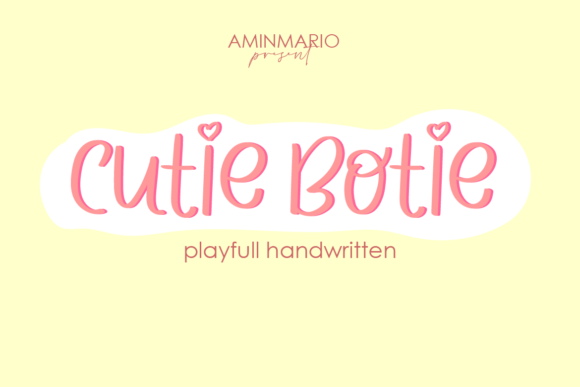
About Cutie Botie Font
Introducing “Cutie Botie,” the joyful and quirky handwritten font that is sure to bring a smile to your face! With its playful and lighthearted style, this font radiates happiness and positivity, making it perfect for a wide range of creative projects. Let “Cutie Botie” capture your heart and infuse your designs with joy and charm.
The whimsical and delightful appearance of “Cutie Botie” makes it the ideal choice for adding a touch of fun to your wedding invitations, thank you cards, quotes, greeting cards, logos, business cards, and any other design that needs a dose of cheerfulness. Its unique and distinctive strokes create a sense of playfulness that is sure to brighten up any project.
With “Cutie Botie,” your designs will exude a sense of joy and positivity, making them stand out in a sea of ordinary. This font’s versatility allows it to shine across various themes and styles, making it suitable for both formal and casual occasions.
Get creative and use “Cutie Botie” to craft eye-catching social media posts, delightful stationary art, and captivating designs that resonate with your audience. Whether you’re designing for a special event, a brand, or simply to spread happiness, this font will elevate your work to a whole new level.
Not only is “Cutie Botie” full of personality, but it also offers practicality with its easy-to-access glyphs and swashes, thanks to PUA encoding. Add charming flourishes and decorative elements effortlessly, giving your designs that extra touch of whimsy.
Embrace the joy and playfulness of “Cutie Botie” as it inspires you to create designs that radiate positivity and happiness. Let this font be the perfect companion for your creative endeavors, turning your ideas into delightful and captivating works of art.
So, fall in love with “Cutie Botie” and let its incredibly versatile style be the source of inspiration for your next projects. From wedding invites to social media graphics, every design will be infused with the infectious spirit of this joyful and quirky font. Get ready to spread the love and laughter with “Cutie Botie” as your creative partner!